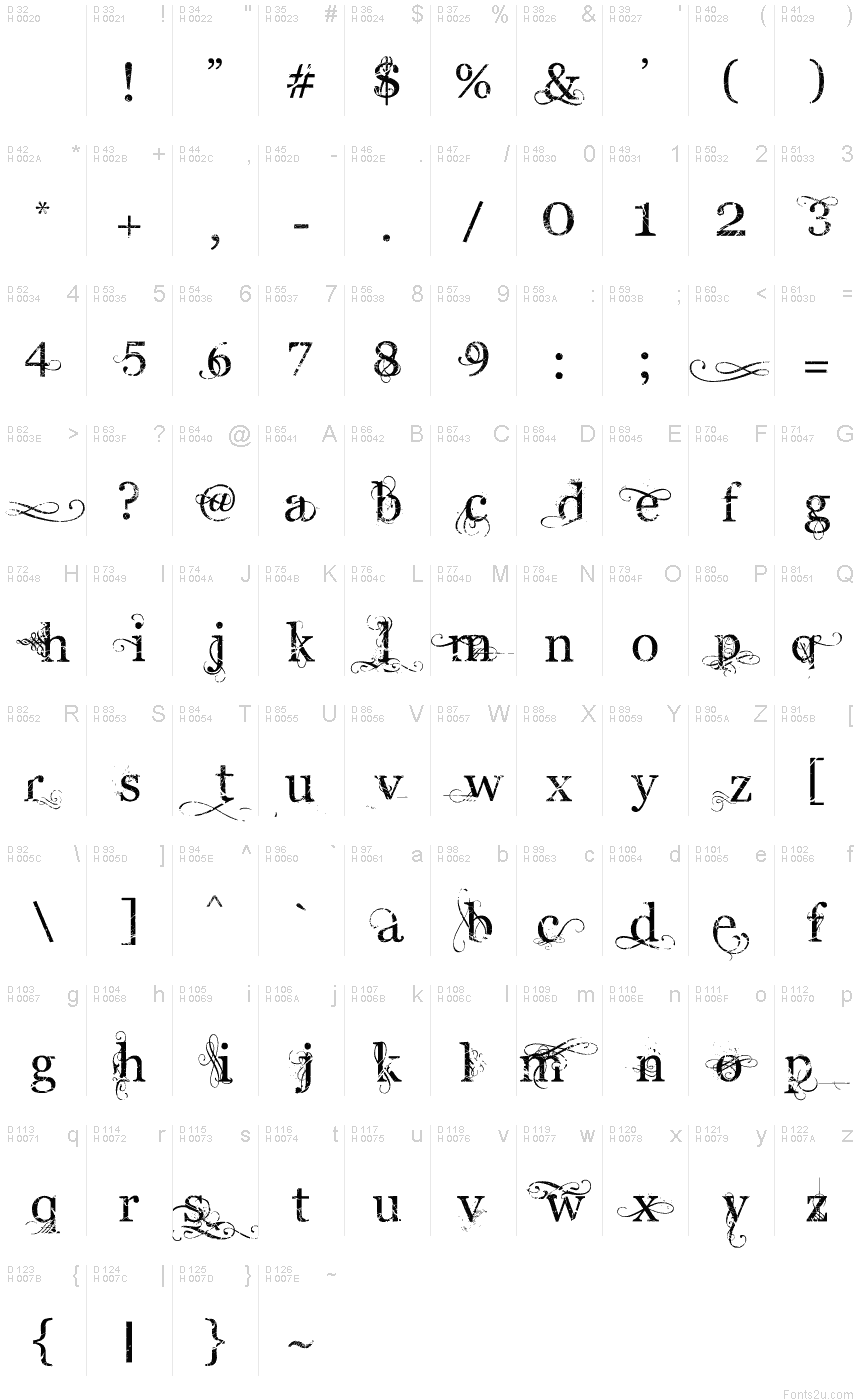
Angelic War, a free eroded curly display font from Dirt2.com, leans into a distressed gothic mood with long looping strokes and splintered edges. The letters feel theatrical rather than formal, mixing blackletter-like drama with big curls that whip out from the main forms and leave a rough, weathered trail.
It suits poster titles, album covers, dark fantasy branding, event flyers, and merch graphics where the lettering can carry the atmosphere on its own. As a free font, it also makes sense for short headlines, logos, and title cards, because those sweeping loops and chipped texture give even a few words a dramatic pull.
A curvy, grunge, heavenly font from Dirt2.com